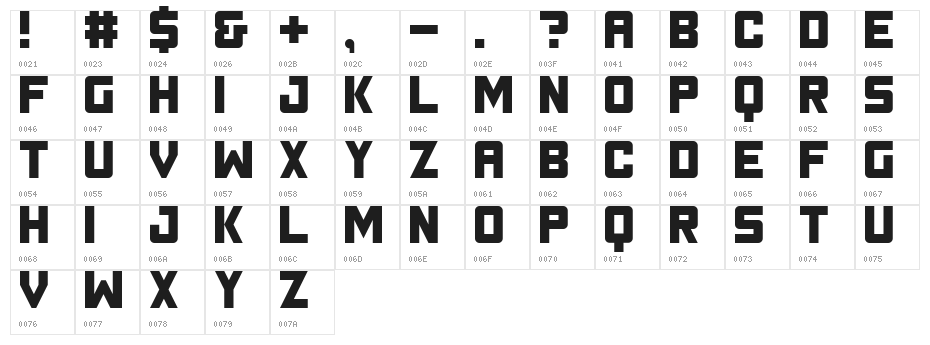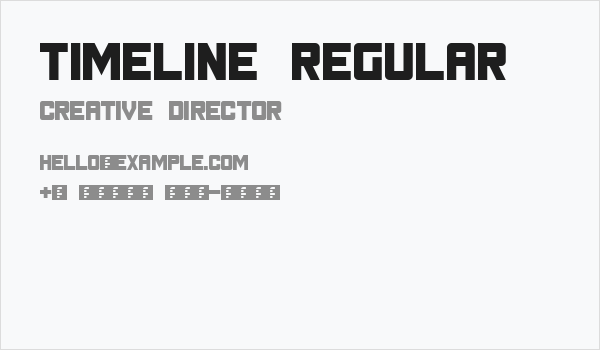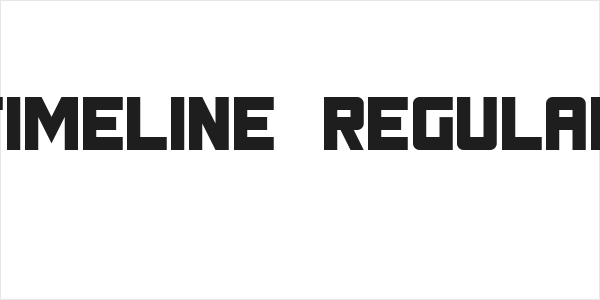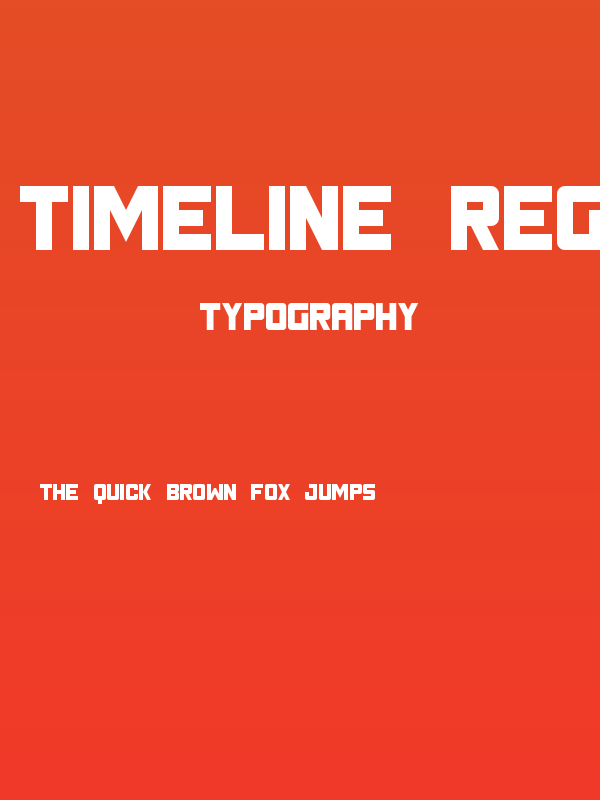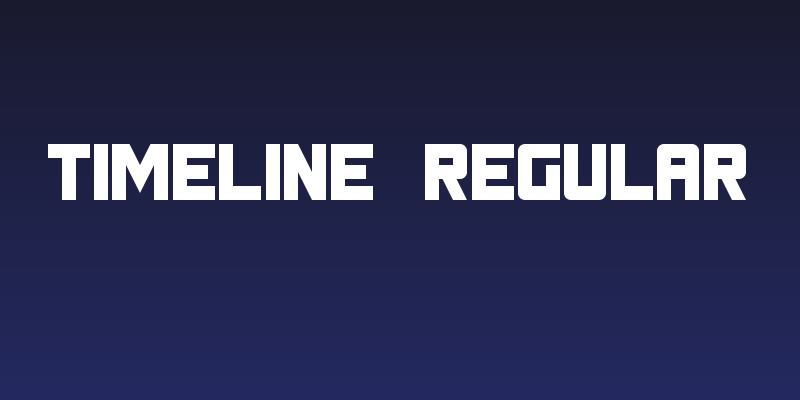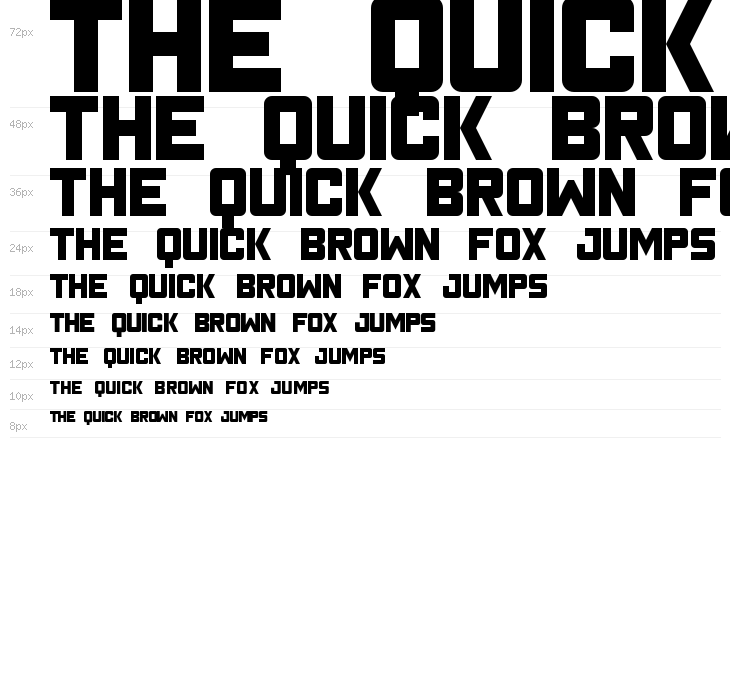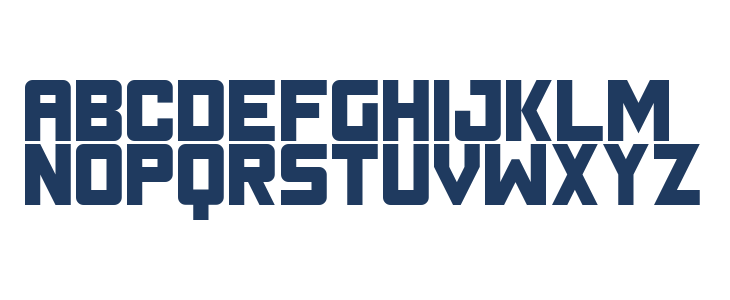
Timeline Regular Font
Timeline Regular Description
This font features a bold, geometric design with a strong presence. The characters are constructed with sharp, angular lines and a uniform stroke width, giving it a modern and industrial feel. The uppercase letters are particularly striking, with a blocky appearance that commands attention. The lowercase letters maintain the same geometric style, ensuring consistency across the typeface. The numerals and special characters are designed to match the boldness and angularity of the alphabet, making them suitable for impactful displays. The overall design is clean and uncluttered, making it ideal for projects that require a strong visual impact.
| Proposed Projects | Ideal for branding, posters, headlines, and any design requiring a strong, modern look. |